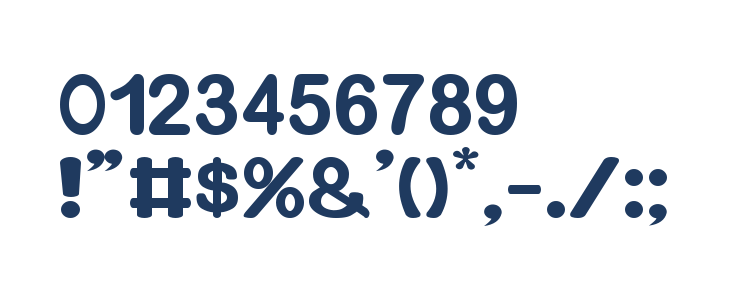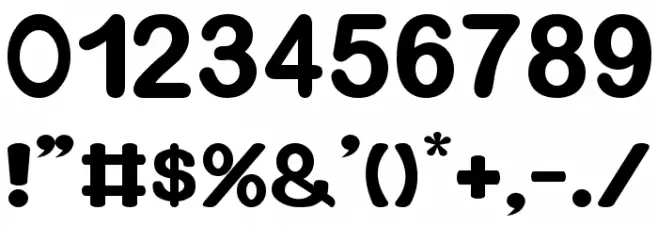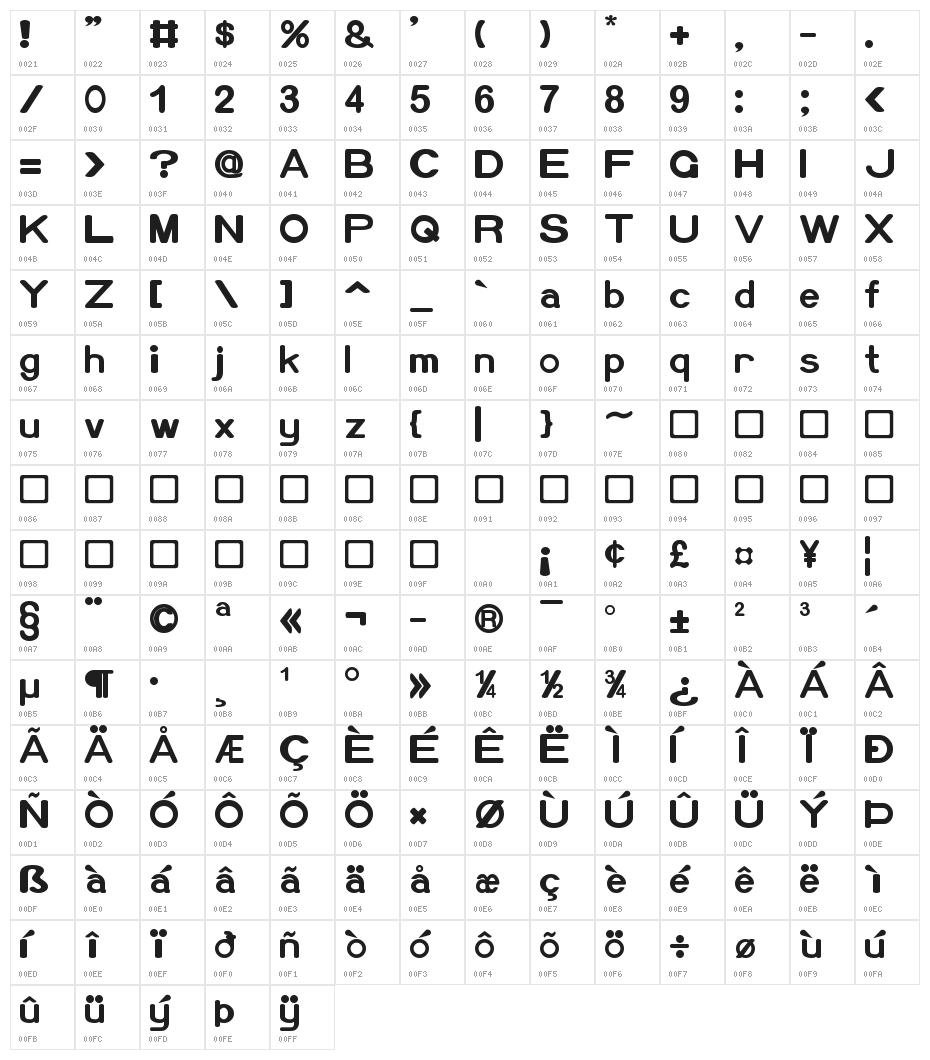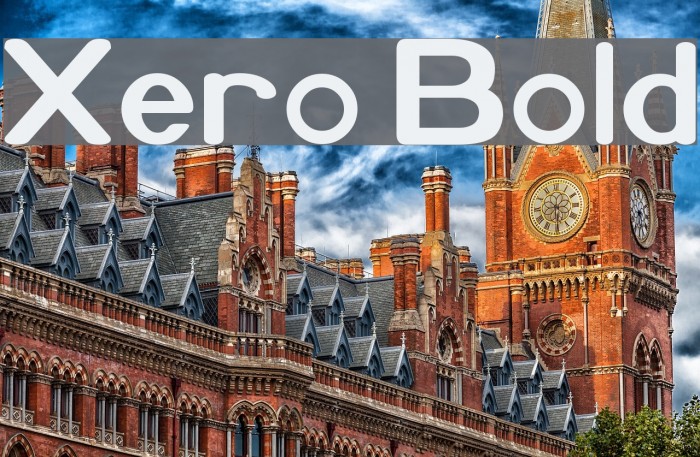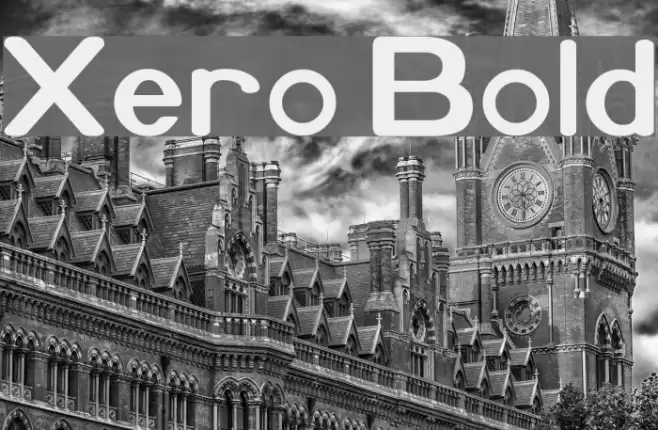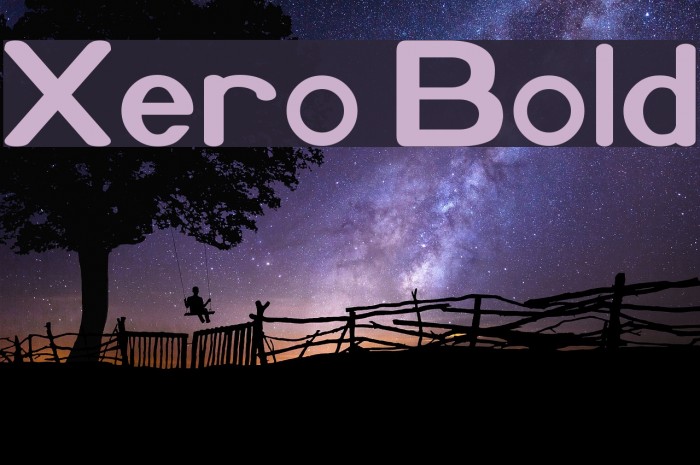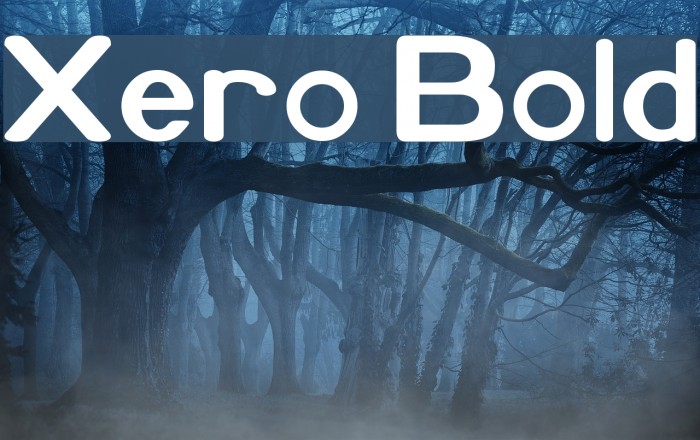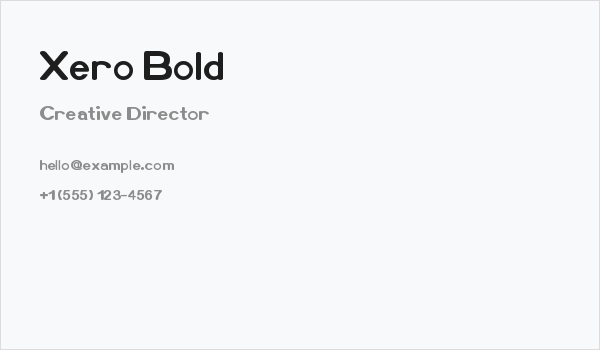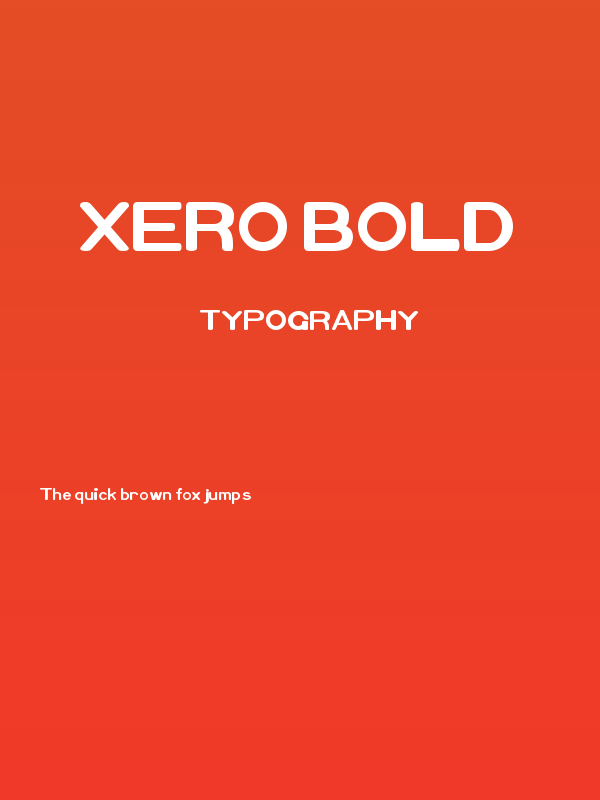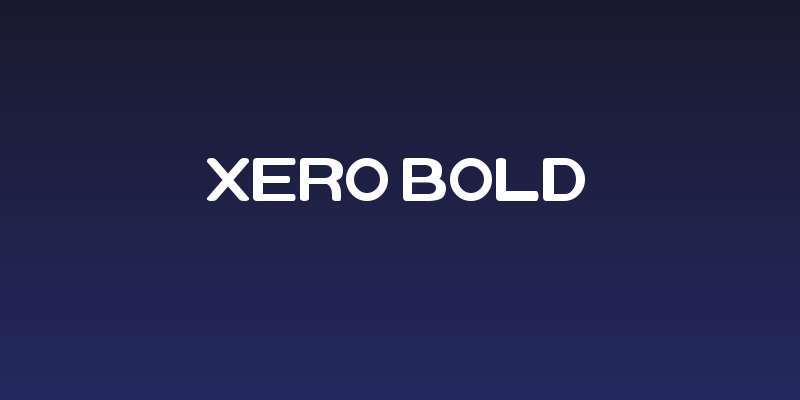
Xero Bold Font
Xero Bold Description
This font features a bold and rounded sans-serif style, characterized by its smooth curves and uniform stroke width. The letters are well-proportioned, offering a modern and friendly appearance. The uppercase and lowercase letters maintain a consistent design, with rounded edges that enhance readability. The numerals are clear and distinct, matching the overall aesthetic of the alphabet. Special characters are included, providing versatility for various design needs. This font is suitable for both digital and print media, offering a contemporary look that is both approachable and professional.
| Proposed Projects | Ideal for branding, advertising, packaging, and web design projects. |